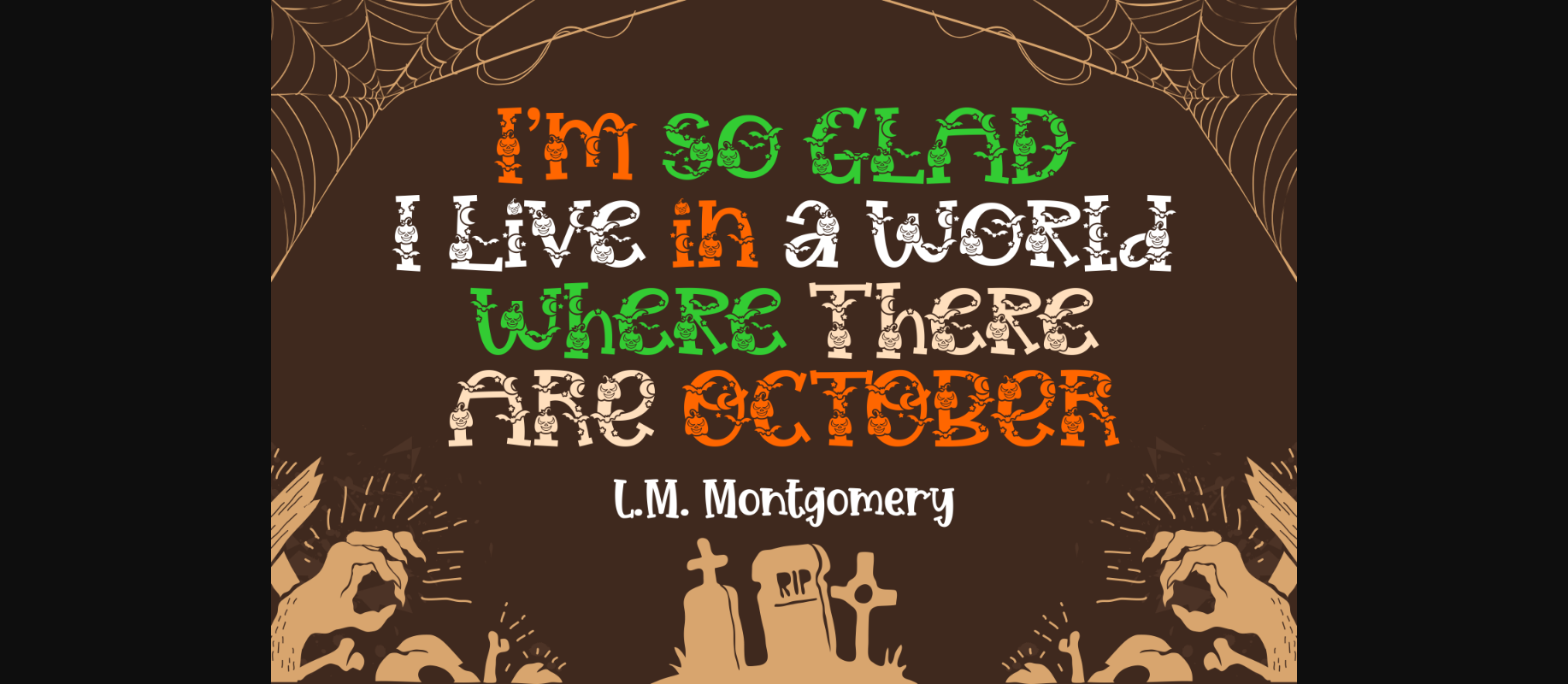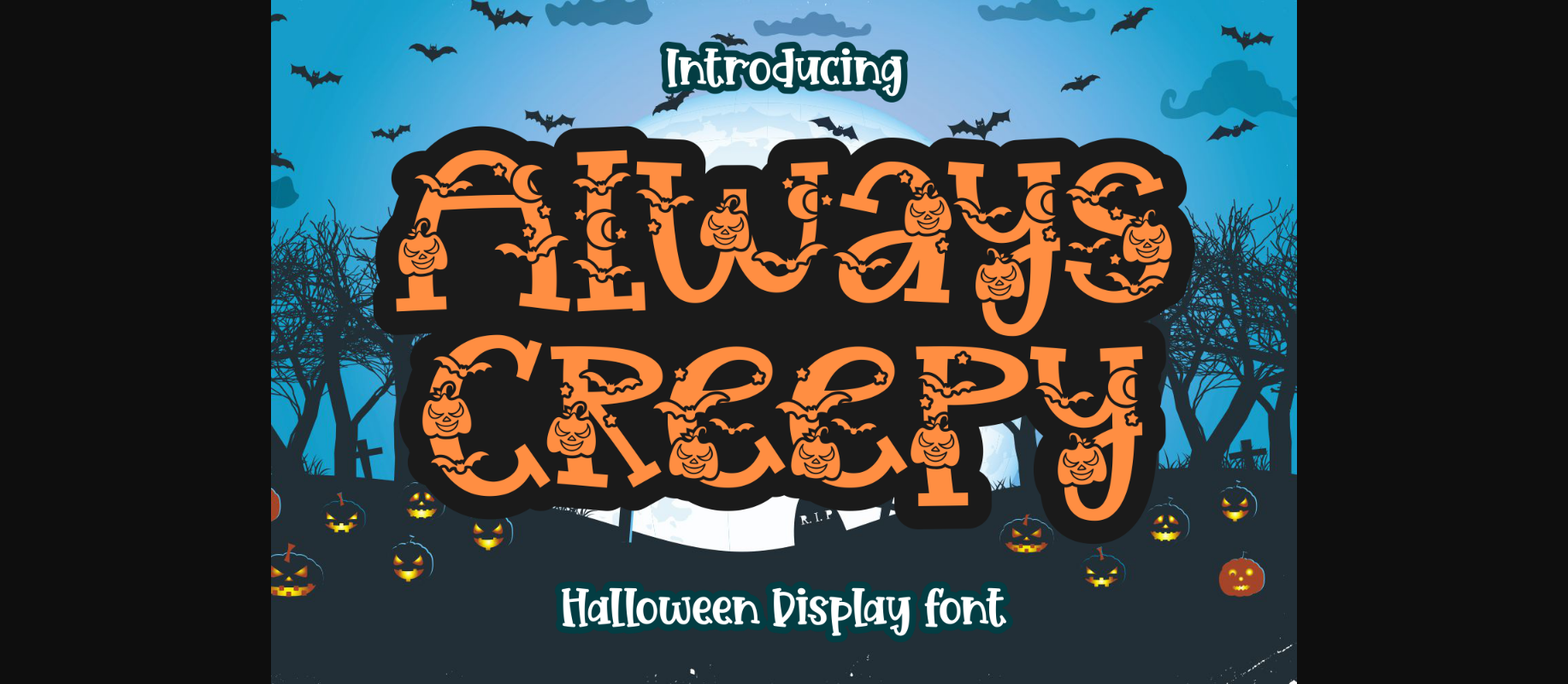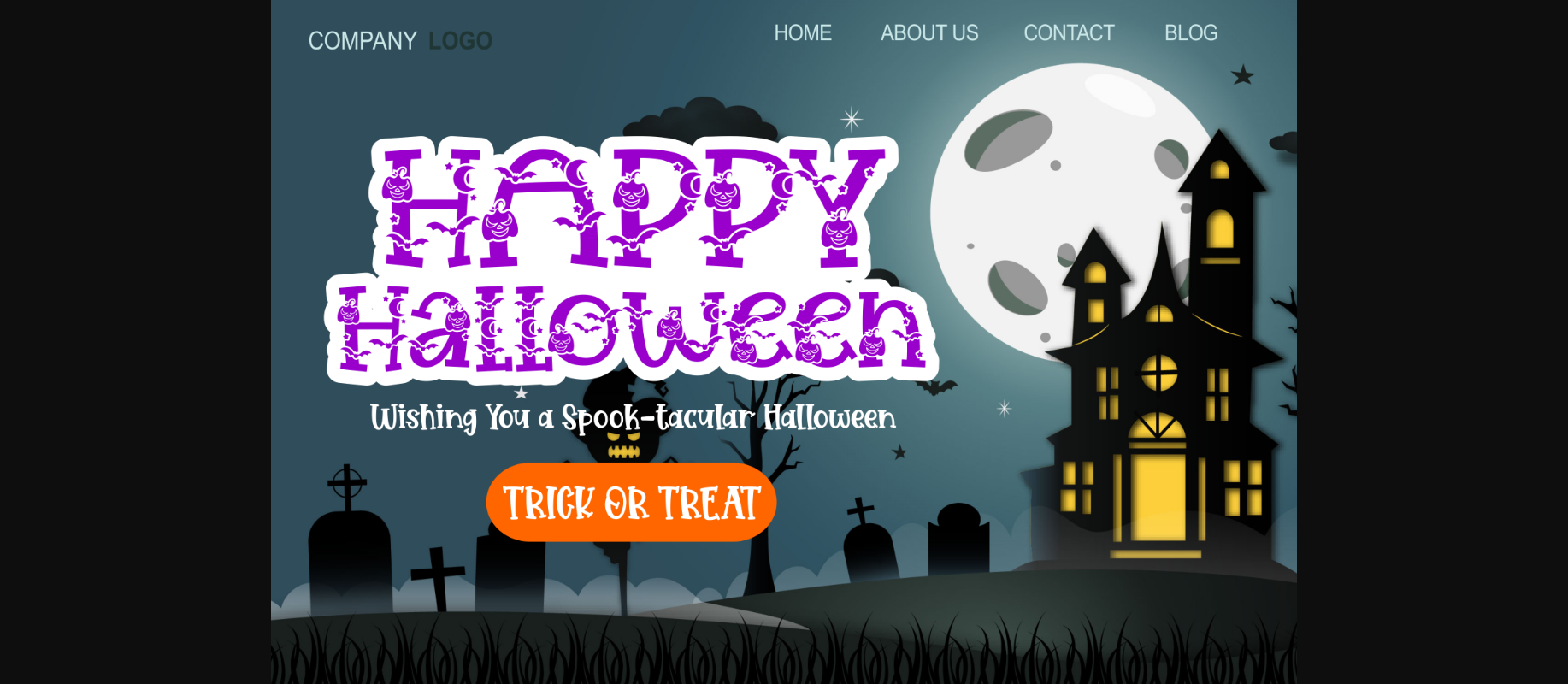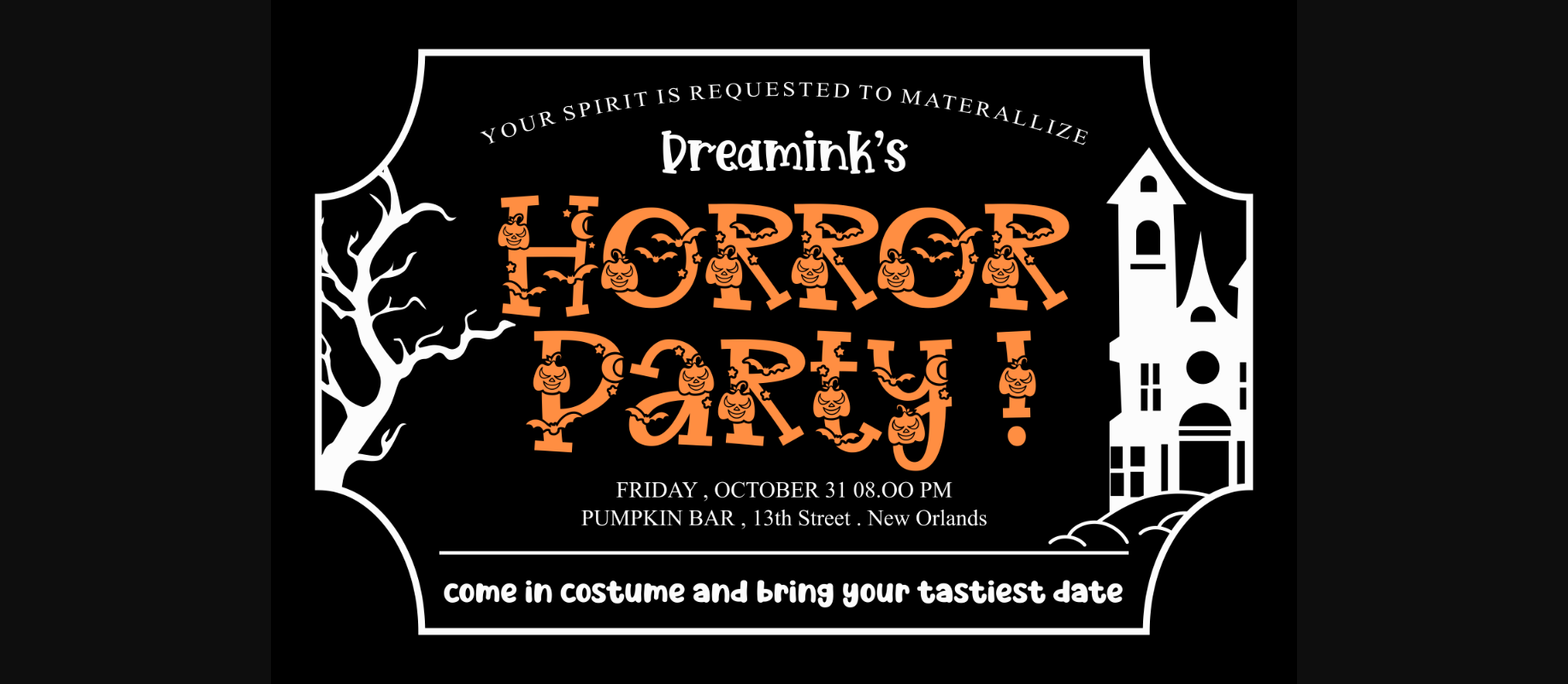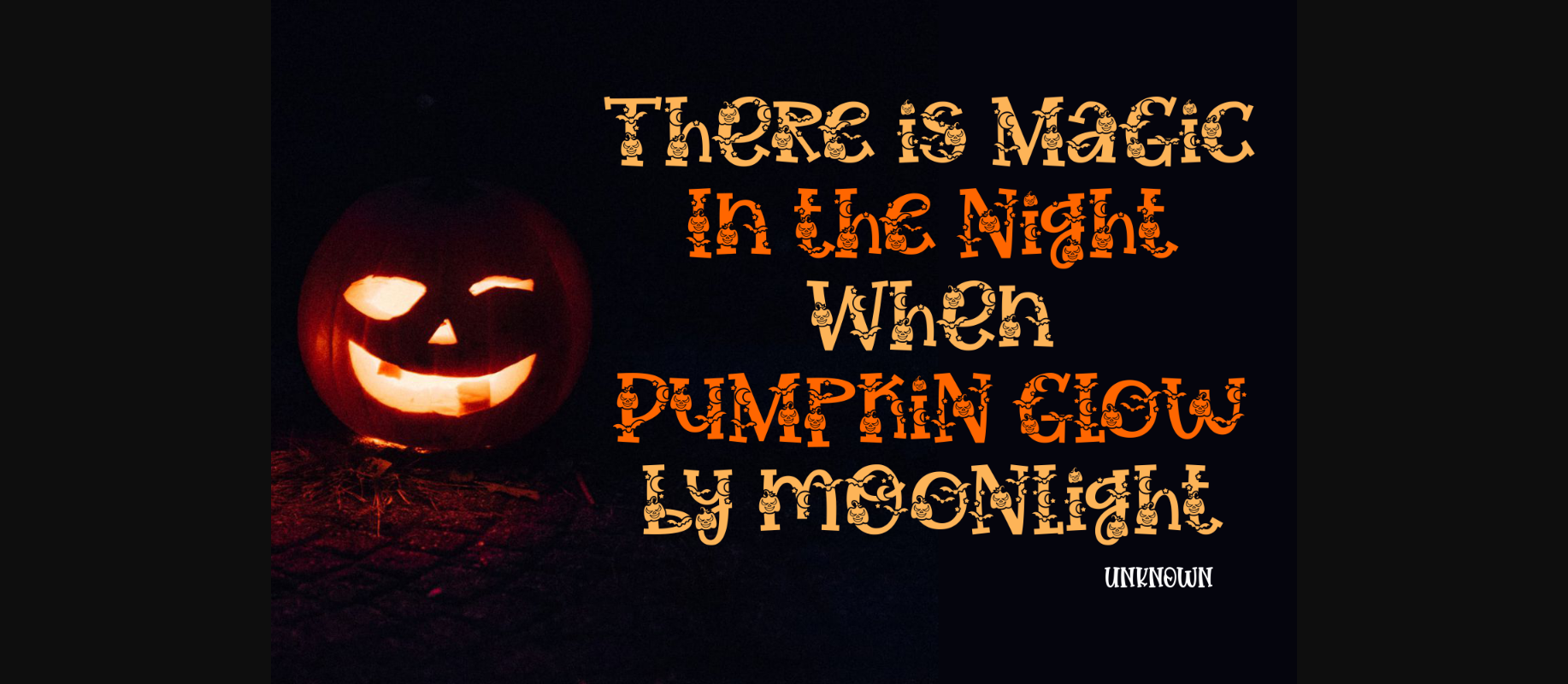
Always Creepy Font
About Always Creepy Font
Always Creepy is a cool and spooky decorative font. No matter the topic, this font will be an incredible asset to your fonts’ library, as it has the potential to elevate any creation.